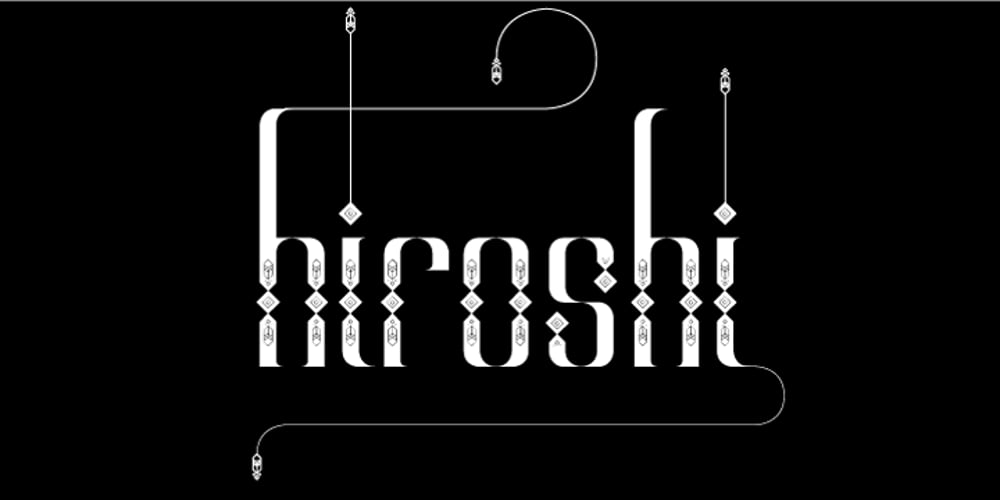
Alt Hiroshi Font Family was designed by Andreas Leonidou and published by ALT. Alt Hiroshi contains 6 styles and family package options. Hiroshi is a 6 weight decorative typeface and is one of the best fonts I ever created for many reasons. I really enjoyed the all the design process (yes even the kerning) and I’m very very proud with the results you can check out the whole presentation at www.behance.net.